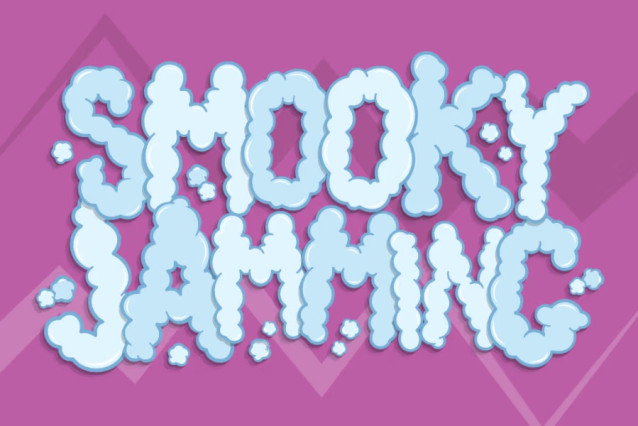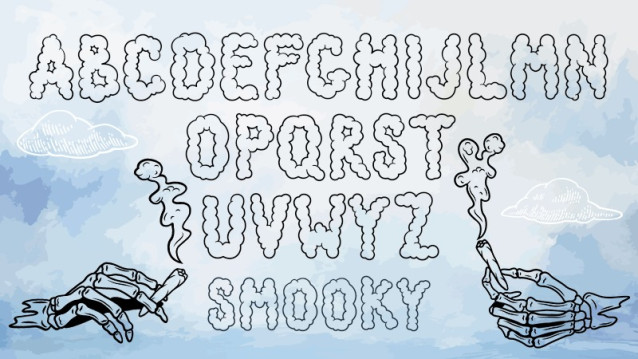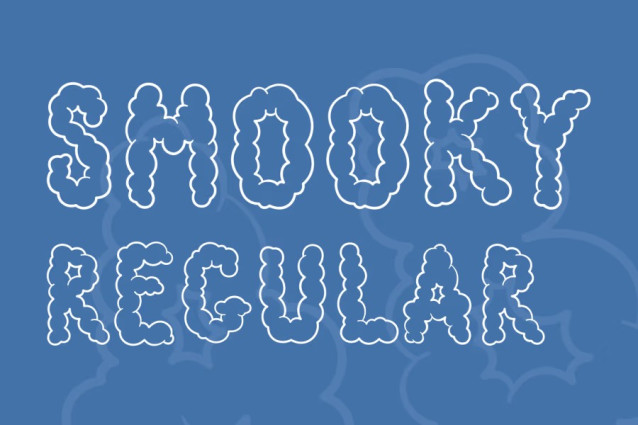
Smooky Font
Smooky Font is a simple and modern display font suitable for quotes, logos, headings, titles, and many more. Use it on any of your creative projects, and your designs will become outstanding!